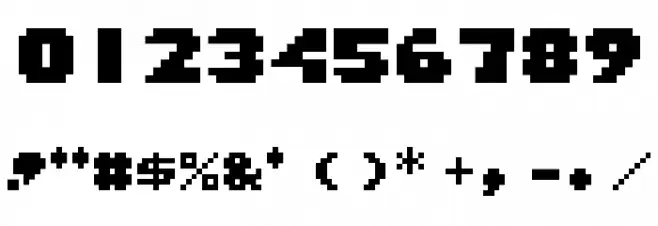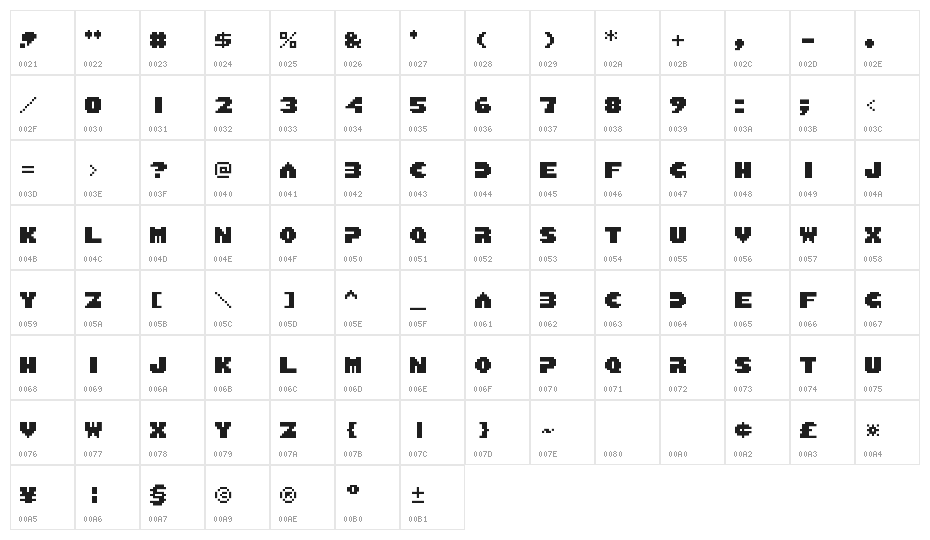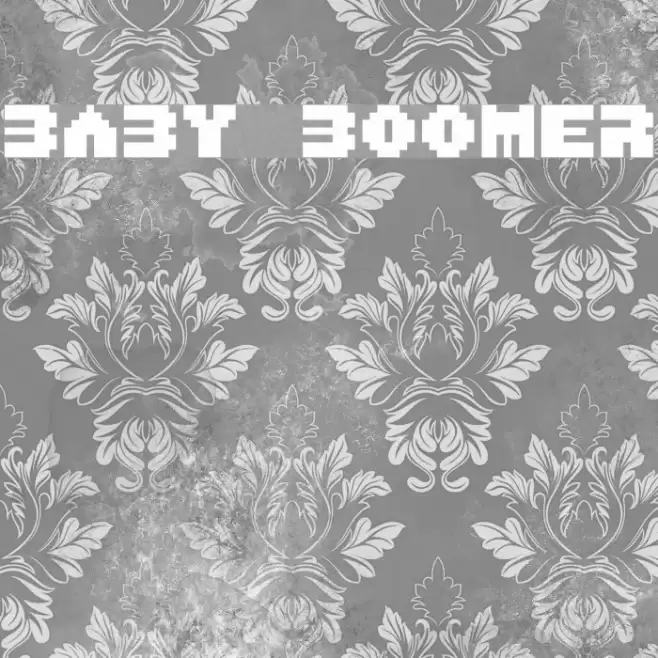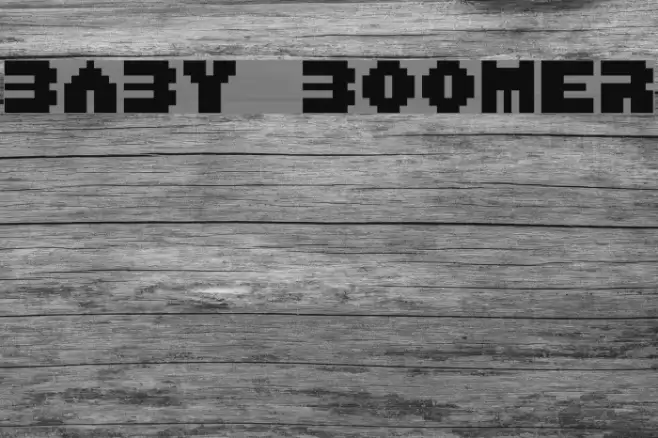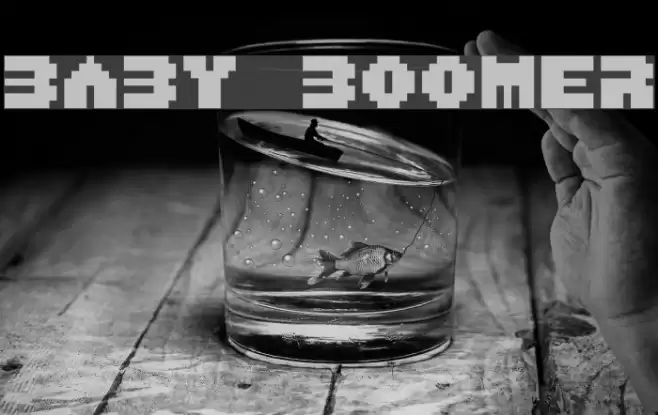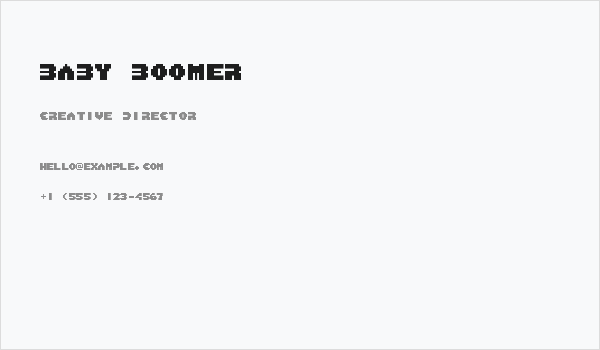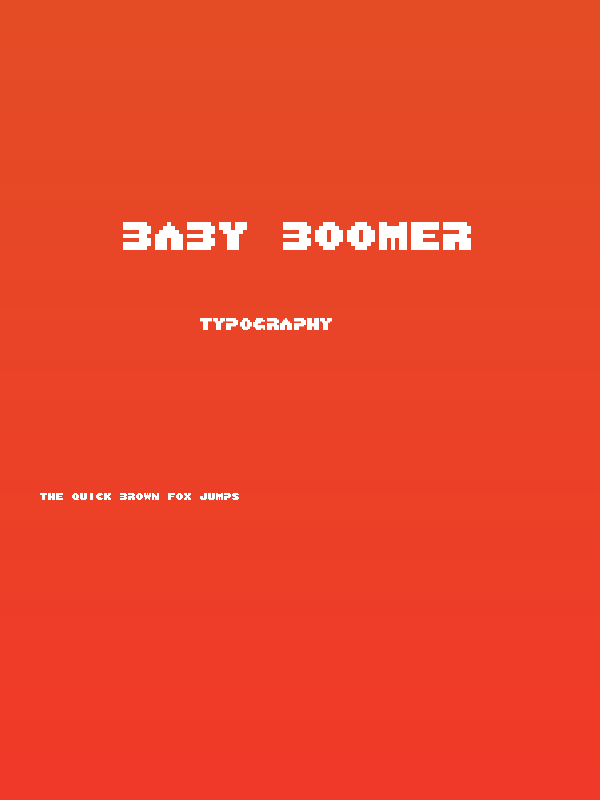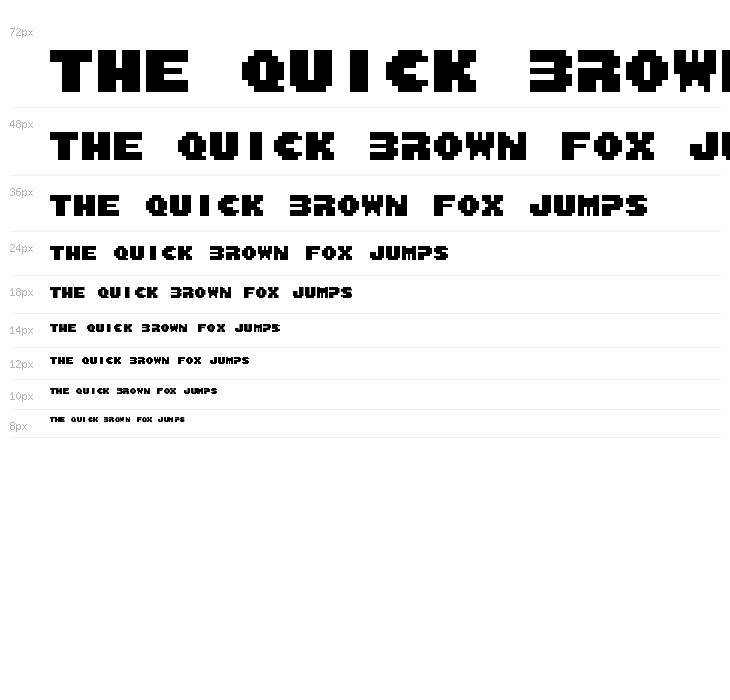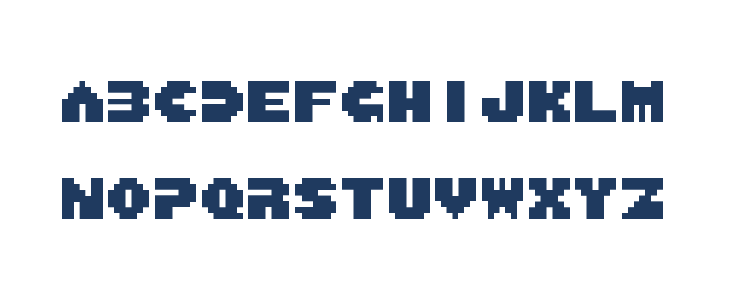
Baby Boomer Font
Baby Boomer Description
This font features a bold, pixelated style reminiscent of early digital displays and retro video games. Each character is constructed with a blocky, geometric design, giving it a distinct, nostalgic feel. The uppercase and lowercase letters maintain a consistent width, contributing to a uniform appearance. The numerals and special characters follow the same pixelated pattern, ensuring a cohesive look across all glyphs. The font's strong, angular lines and lack of curves make it highly legible at various sizes, ideal for capturing attention in digital and print media.
| Proposed Projects | Ideal for retro-themed designs, video game graphics, digital art projects, and any creative work seeking a nostalgic or tech-inspired look. |